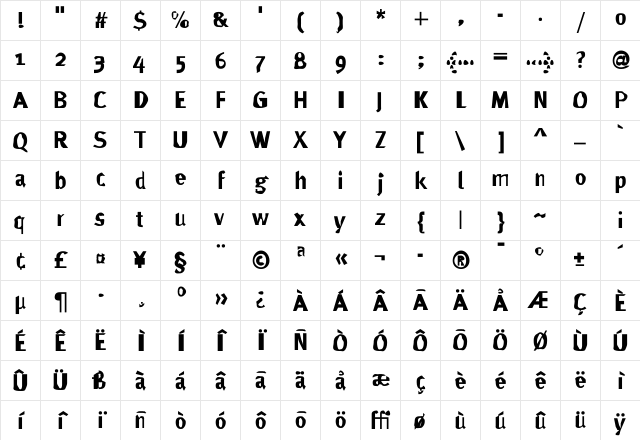
MetaPlus DemiBold
Style: DemiBold
Complete MetaPlus DemiBold glyph index. Displaying only characters natively supported by MetaPlus DemiBold font.
Design Context for MetaPlus
MetaPlus is a composed and adaptable typeface that performs quietly and consistently across a wide range of design contexts. Its bold stroke weight gives it real presence on the page.